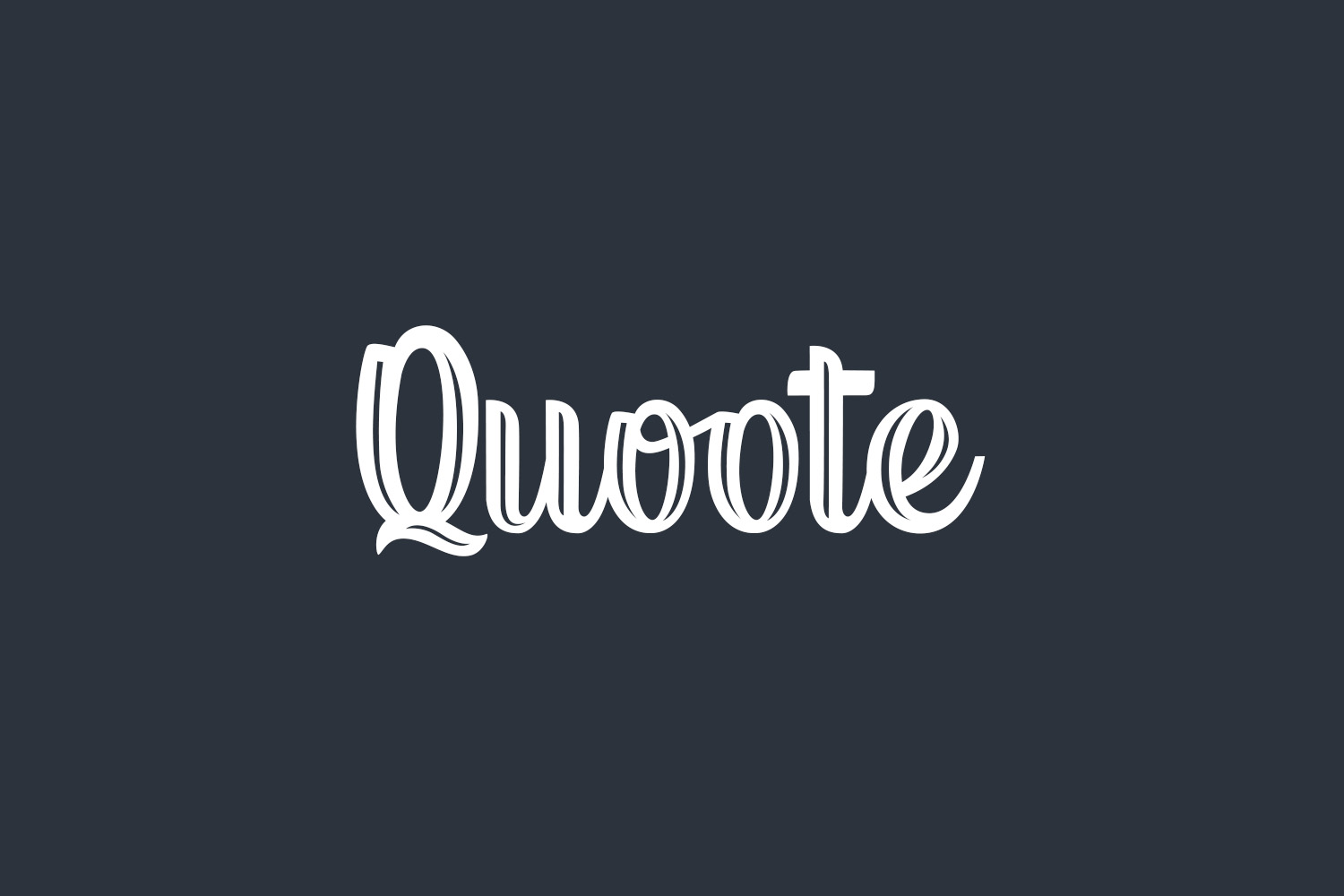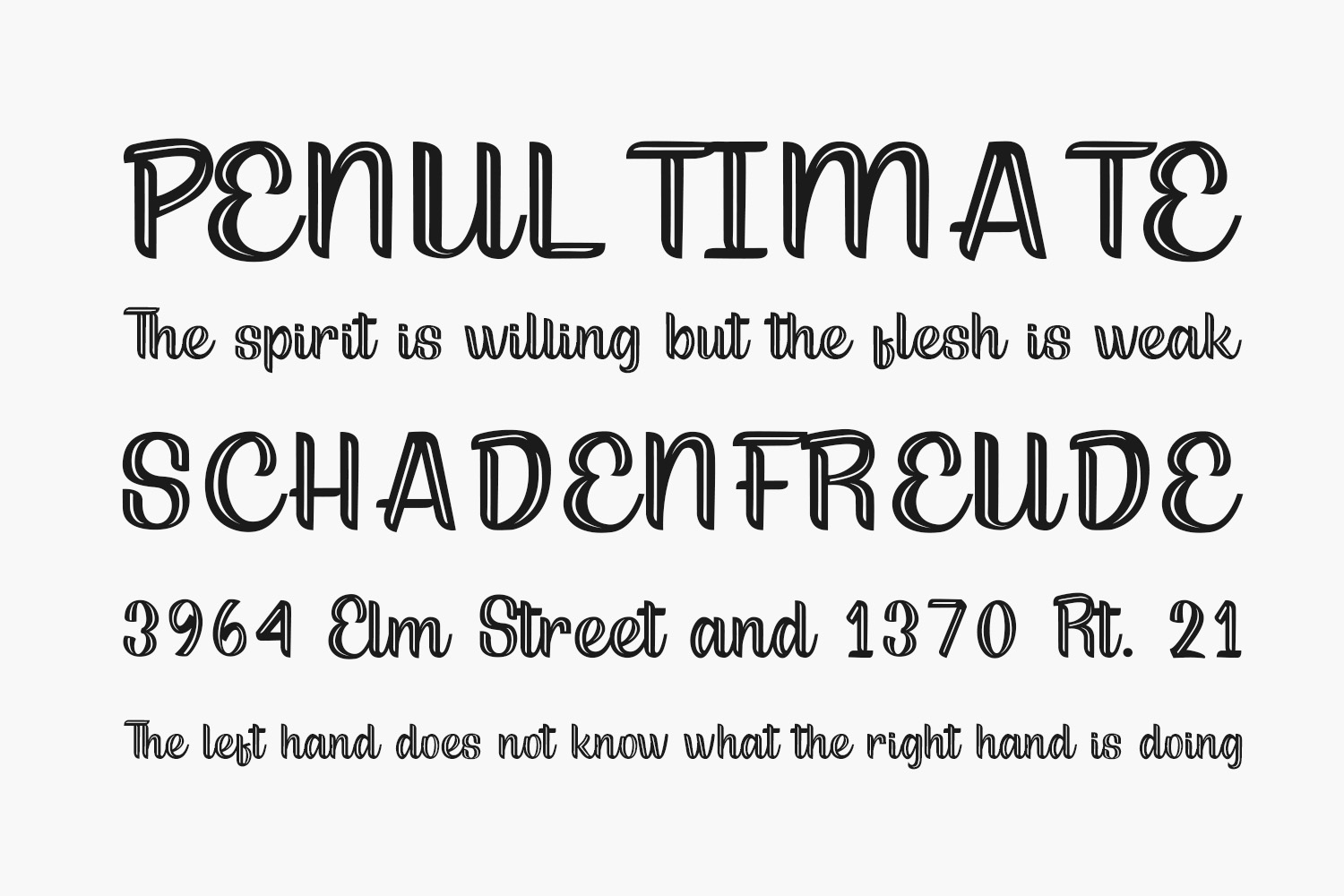
Quoote Free Font is a unique handwritten font. Whether you’re using it for crafting, digital designing, presentations, or greeting card making, it’s perfect. Quoote Free Font was designed by Eknoji Studio and is free for personal use only. Please purchase the full version for commercial use.